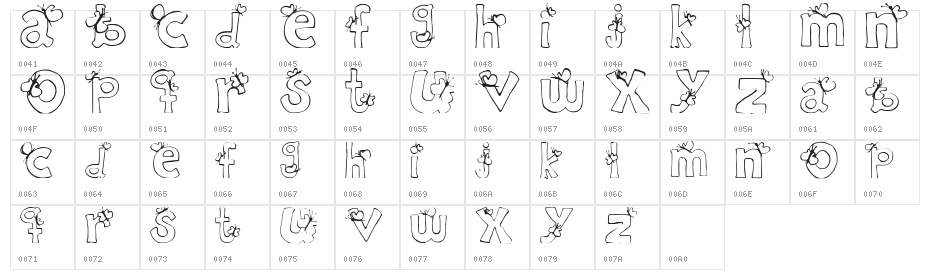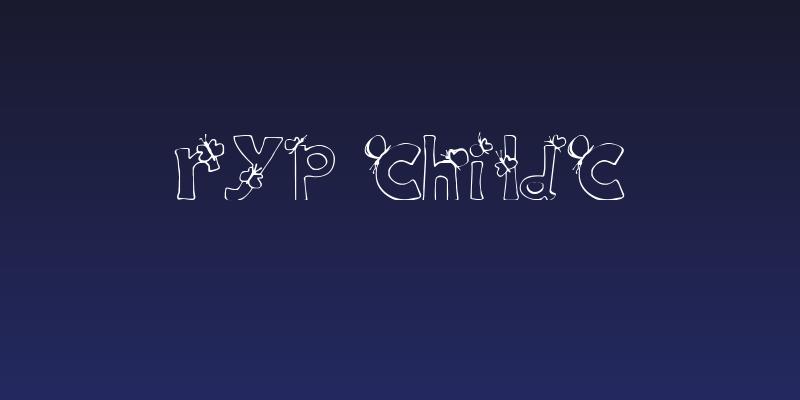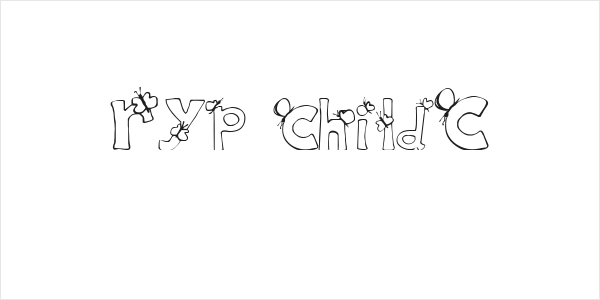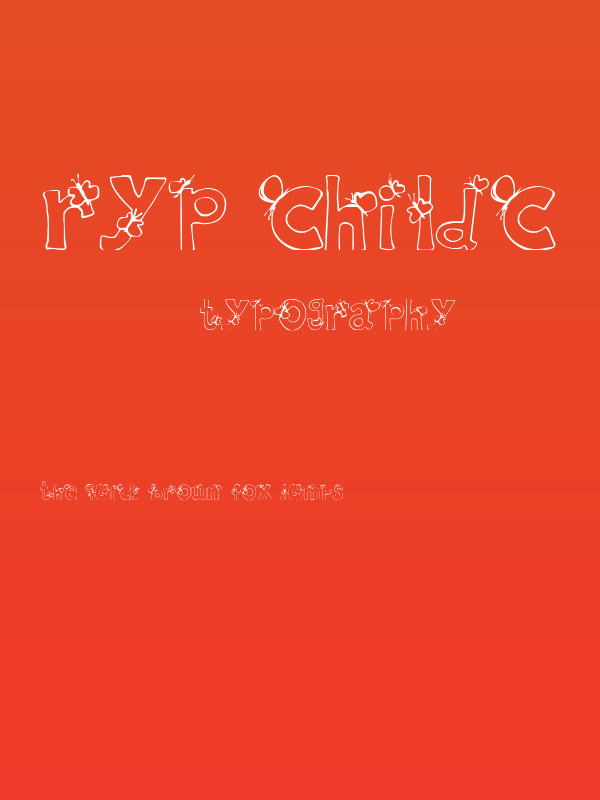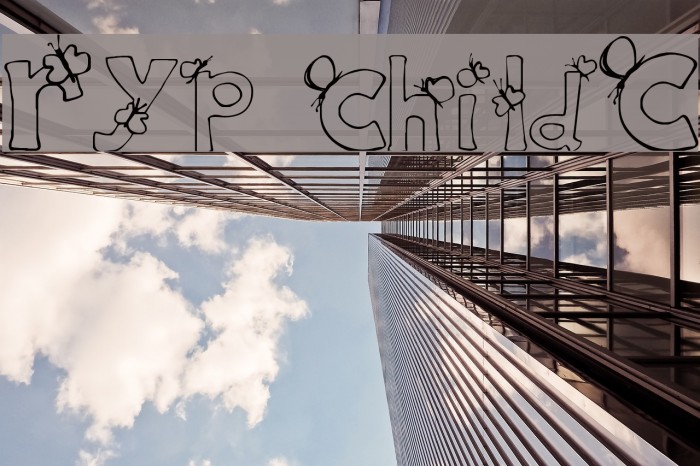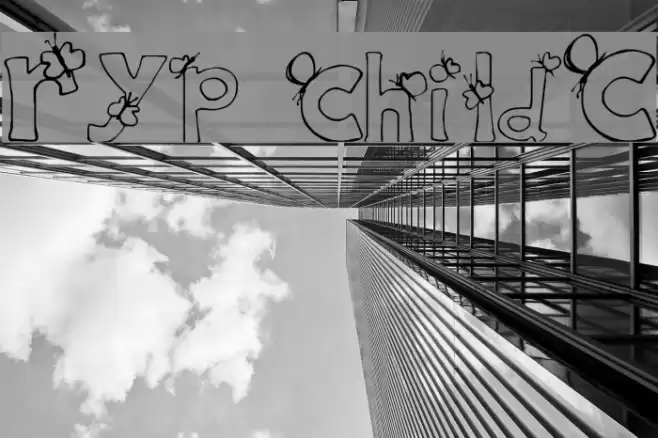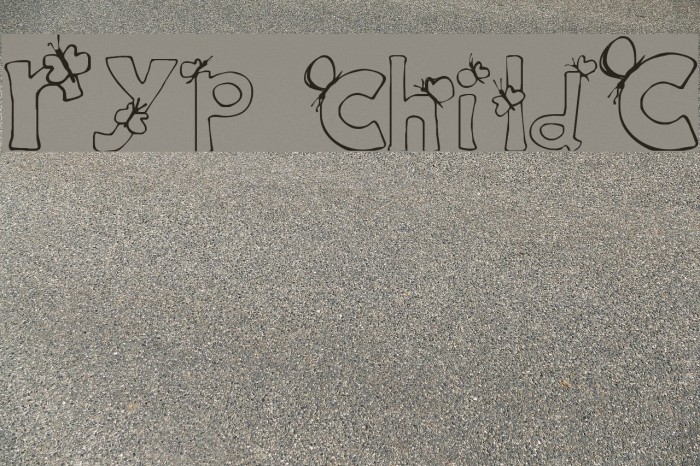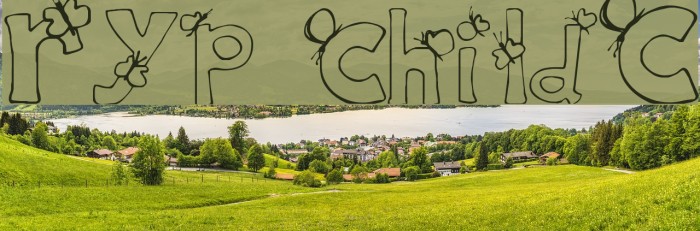
Ryp childC Font
Ryp childC Description
This playful and whimsical font features charming, cartoon-like characters with small insect illustrations adorning each letter. The design is bold and eye-catching, with a hand-drawn aesthetic that adds a touch of fun and creativity. The uppercase and lowercase letters maintain a consistent style, with rounded edges and a slightly irregular form that enhances the playful theme. The inclusion of insects gives each character a unique personality, making it ideal for children's projects or any design that requires a lighthearted and imaginative touch.
| Overall Style | Whimsical |
| Proposed Projects | Ideal for children's books, educational materials, playful branding, and creative posters. |